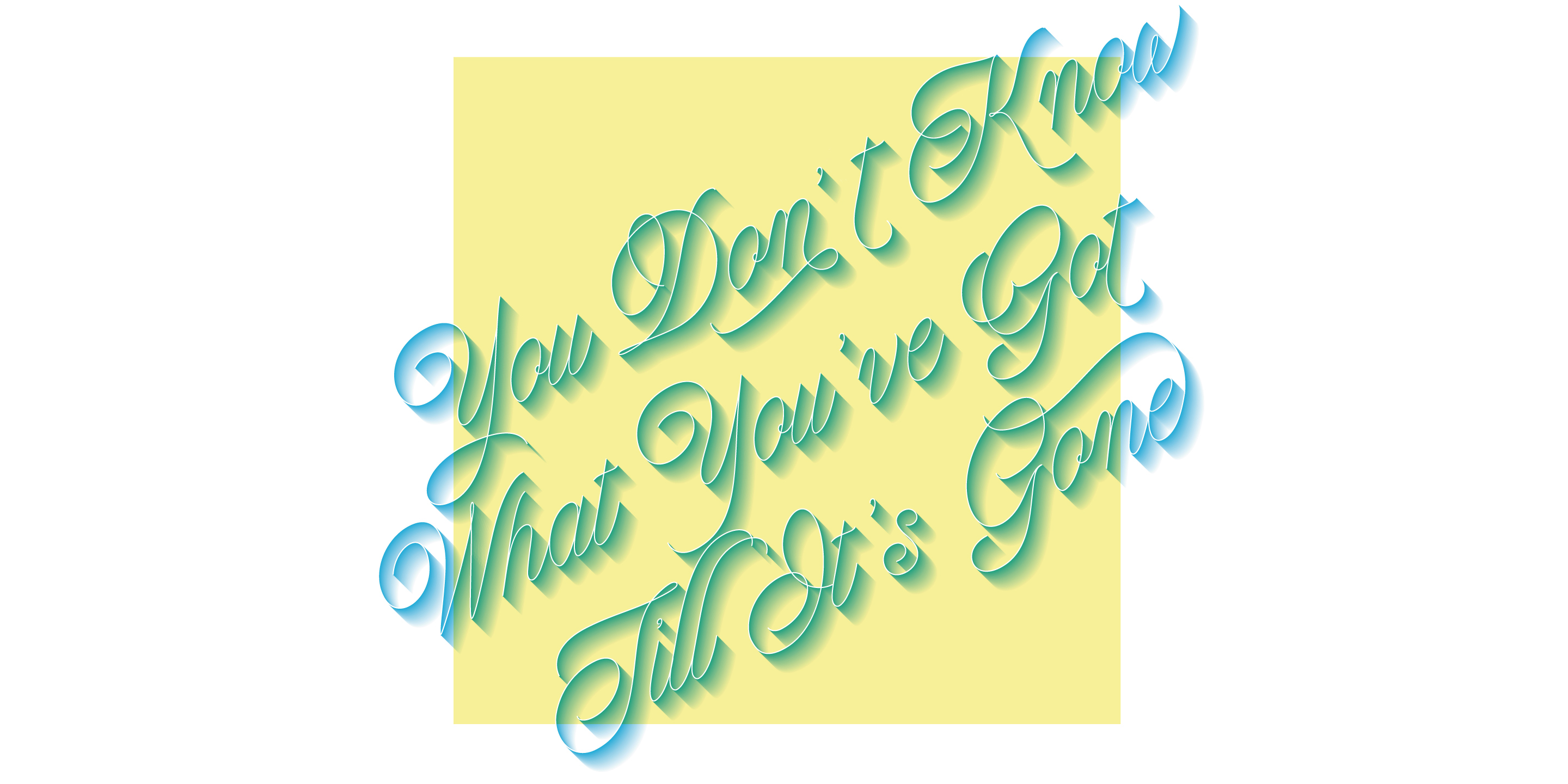
Nautica Lines
A beautiful monolinear script
Nautica Lines
Designed by Resistenza Type FoundryNautica Line takes its skeleton from the original Nautica font. Inspired on the mother font we wanted to create a more delicate version of this contemporary classic typeface.
This family contains 10 fonts, composed by different weights. Select the proper weight depending on the size of your artwork.